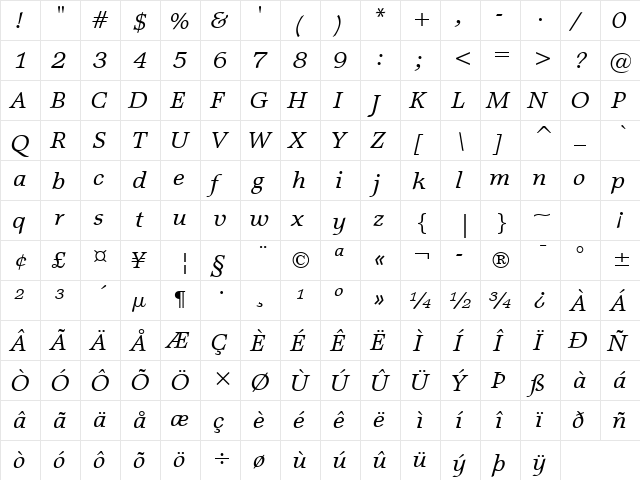
MattAntique BT Italic
Design Context for MattAntique BT Typeface
MattAntique BT wears its vintage influences proudly, with letterforms that recall mid-century signage, classic packaging, and nostalgia-driven design. The slanted form adds forward momentum and visual energy.
Perfect for vintage-inspired branding, retro packaging, nostalgia campaigns, and period-accurate editorial design.
Font Pairing: Combine MattAntique BT with a simple slab or neutral sans — period-accurate companions reinforce the vintage feel without competing for attention.
Pro Tip: Use MattAntique BT for headlines and pull quotes rather than body copy — its personality is best appreciated in short, focused bursts.